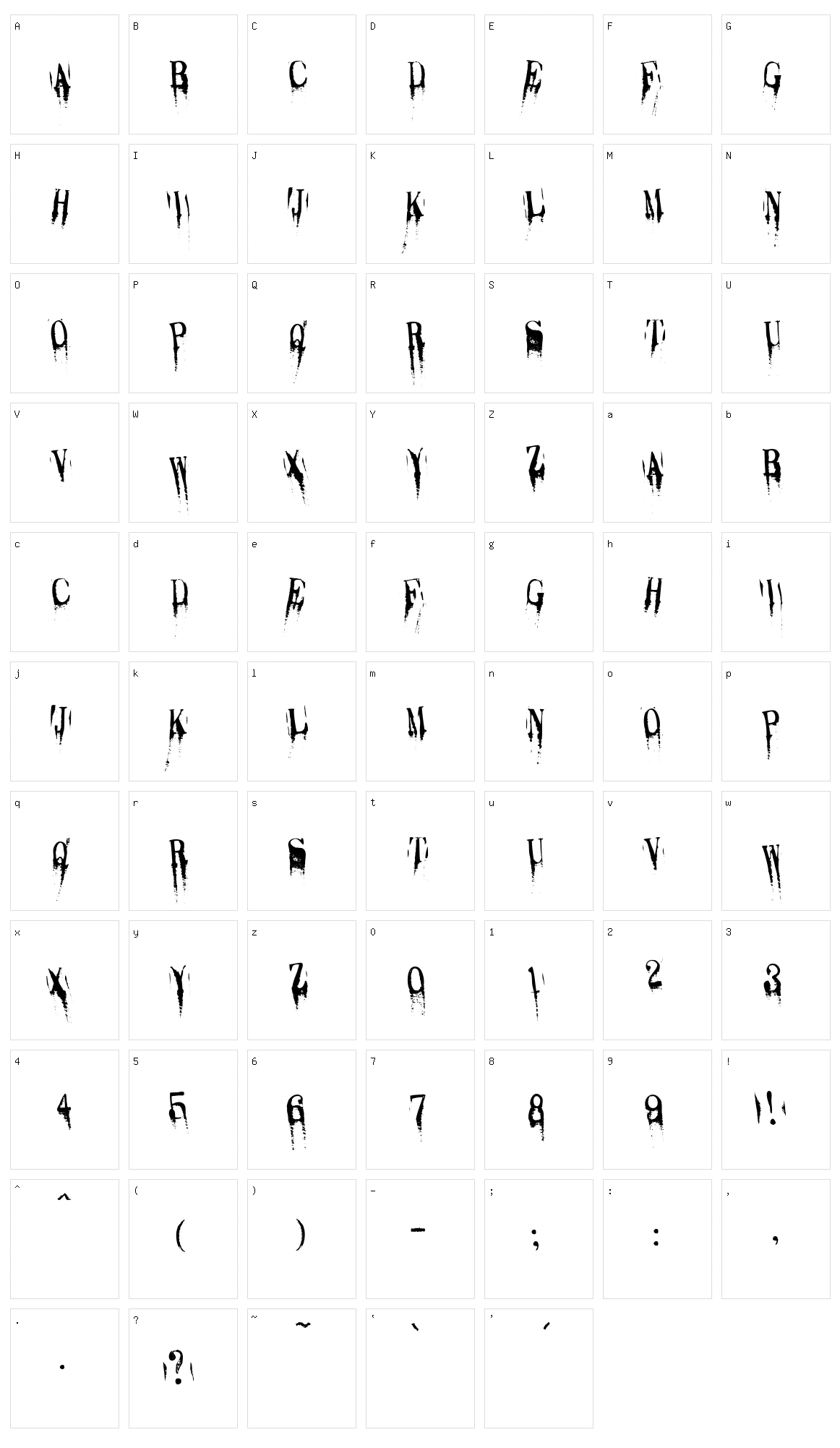
The free font Caracura is carefully designed by Nú-Dës, showcasing a thoughtful balance of creativity and usability and falls under the Distorted font style. When you download the ZIP file, it contains only 204.18 KB of font files, making it lightweight and quick to download. Please review the license details below to understand permitted usage and distribution rights. If license information is not available, we recommend using this font for personal projects only or contacting the author directly for commercial usage permissions.